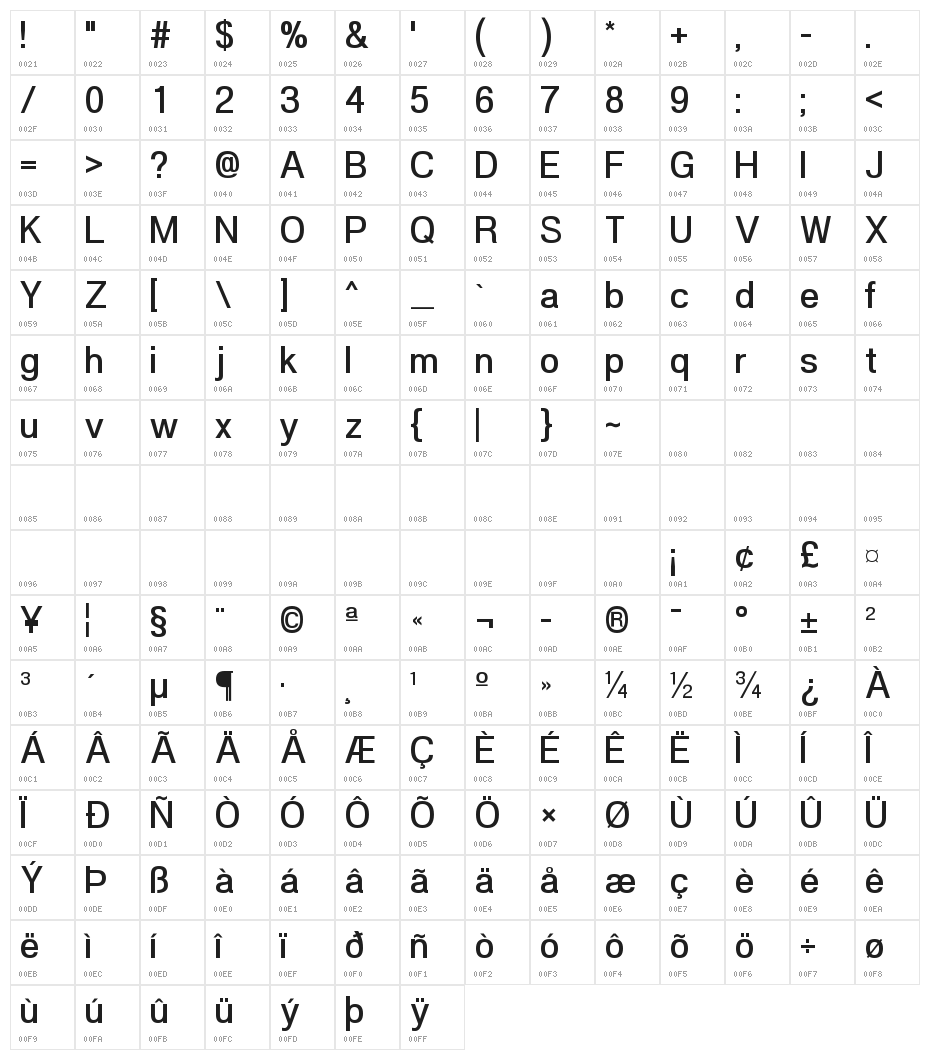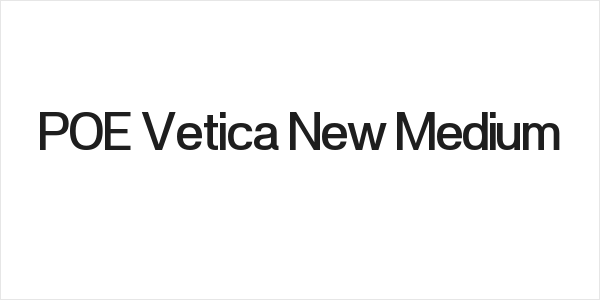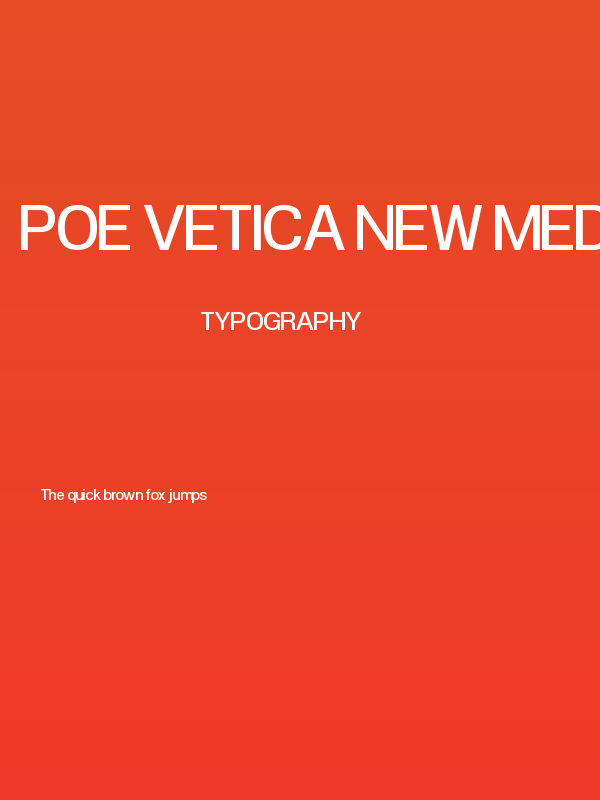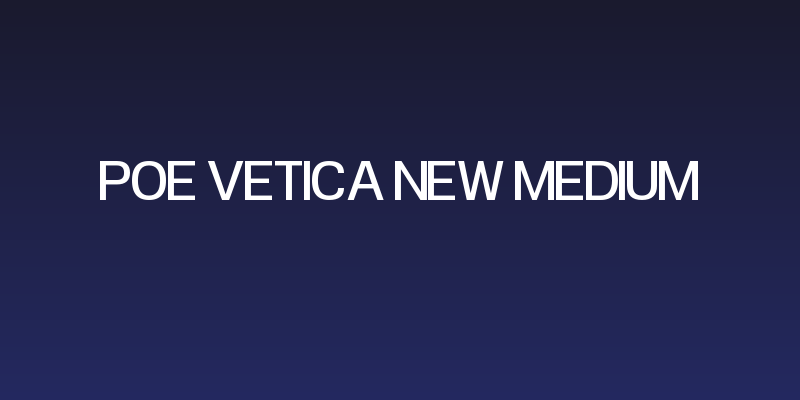
POE Vetica New Medium Font
POE Vetica New Medium Description
This typeface exhibits a clean and modern aesthetic, characterized by its sans-serif design. The letters are evenly spaced with a consistent stroke width, contributing to a balanced and harmonious appearance. The uppercase and lowercase letters are well-proportioned, making it highly legible across various sizes. The numerals are clear and distinct, ensuring readability in numerical data. Special characters are designed with simplicity, maintaining the overall minimalist style. This font is versatile, suitable for both digital and print media, and can be used effectively in a wide range of applications.
| Proposed Projects | Ideal for corporate branding, website headers, editorial layouts, and signage. |